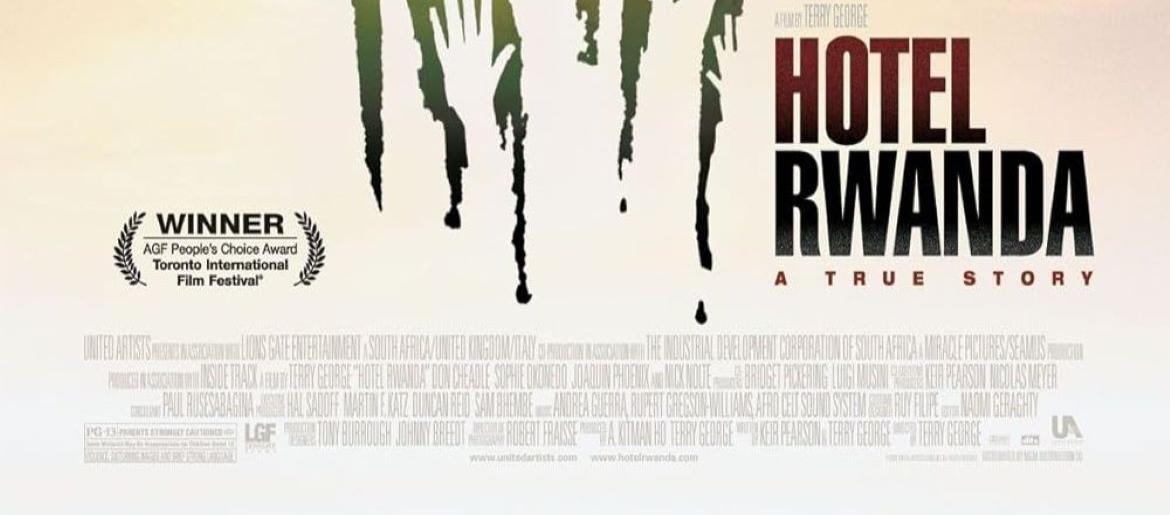
Hotel Rwanda Font
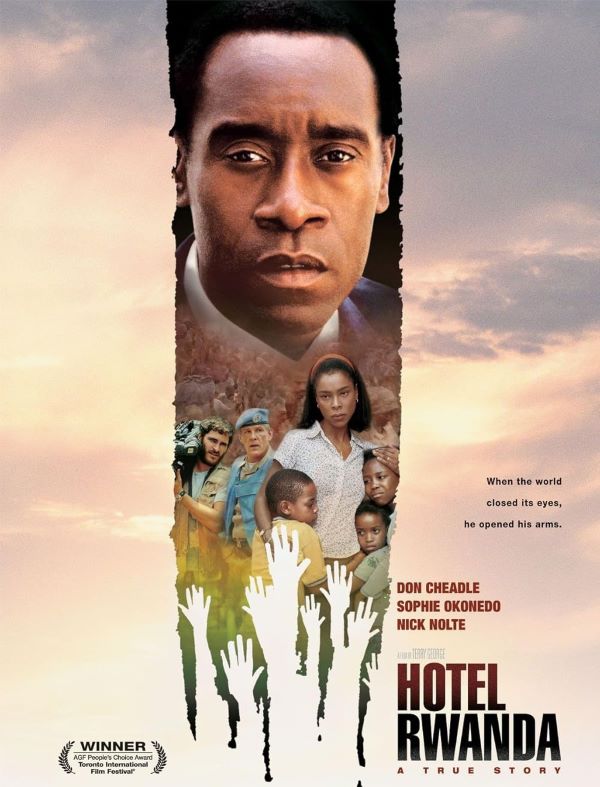
What Font is Used in the Hotel Rwanda Poster?
The Hotel Rwanda Font used in the movie’s title is Swiss 911 Std Extra Compressed, a sleek and bold typeface known for its narrow, tall letterforms. This font perfectly reflects the serious and urgent tone of the film. While the official font is premium, we found a similar free alternative that closely captures the same impactful style and emotional weight of the original title design. Its compressed, clean lines convey both strength and gravity, echoing the tense and dramatic narrative of the movie.
About Hotel Rwanda
Hotel Rwanda (2004), directed by Terry George, stars Don Cheadle, Sophie Okonedo, and Nick Nolte. The film tells the true story of Paul Rusesabagina, a hotel manager who saved over a thousand refugees during the Rwandan genocide, highlighting courage and humanity amidst unimaginable chaos.